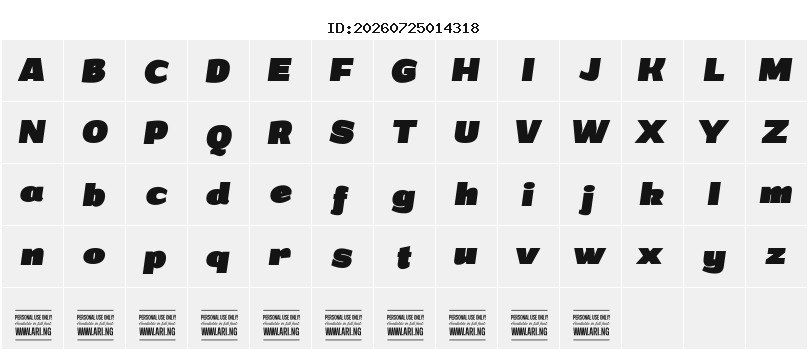
• Font Name: Grandi PERSONAL USE
• Font Style: Black Italic
• Full Font Name: Grandi PERSONAL USE Black Italic
• Designer: MÂns Greb‰ck
About Grandi PERSONAL USE.ttf
Grandi PERSONAL USE.ttf is a modern, elegant sans-serif font designed for ultimate readability and visual harmony. Perfect for branding, headlines, web design, and print materials.